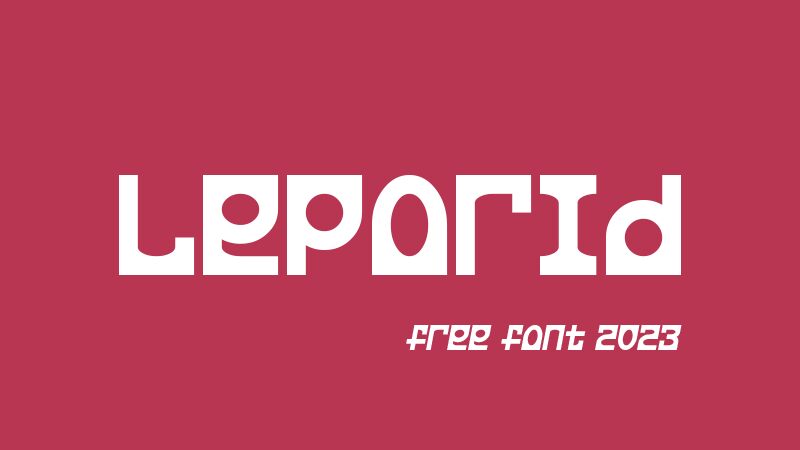
Leporid, crafted by the creative mind of GGBotNet, stands out as a bold and dynamic display font with a semi-expanded width that commands attention. Its distinctive character shapes exude confidence and flair, making it an ideal choice for designers looking to inject personality into their work. The bold weight of Leporid ensures that it makes a strong visual impact, while the semi-expanded form offers a modern twist on classic typography practices.
The aesthetic appeal of Leporid lies in its combination of contemporary style and readability; each letter is designed to stand out while still maintaining clarity. This balance makes Leporid highly versatile for various creative projects, from impactful headlines to eye-catching branding materials.
Whether used in digital media or print, Leporid's unique characteristics assure that any message delivered with this font will be both memorable and effective. Its suitability spans across advertising campaigns, editorial designs, poster creations, and much more-anywhere boldness is key. Embrace the powerful presence of Leporid in your next design endeavor for results that are as commanding as they are stylish.